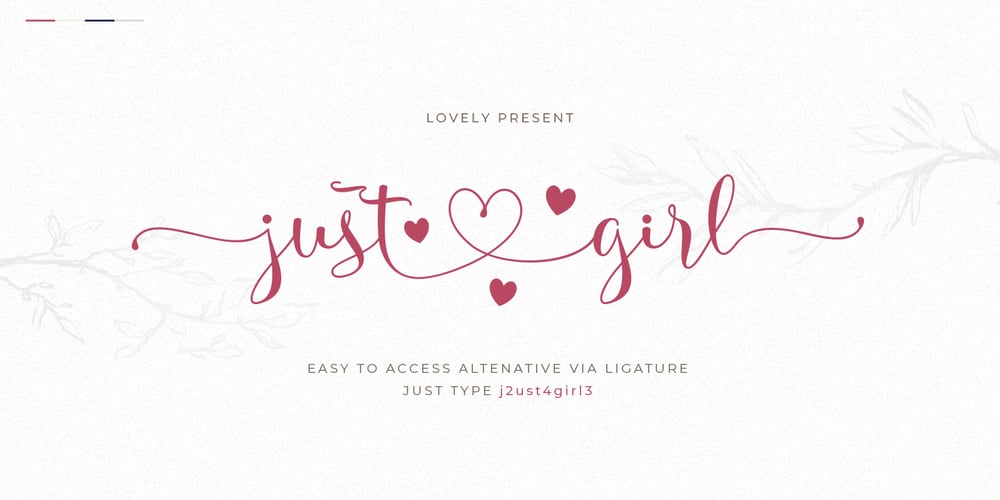
Just Girl Font Family was designed by T. Marjan Bahraini and published by stiplinestudios. Just Girl contains 1 styles and family package options. Lovely Present Just Girl ♥Simple way to access is just type a number (1-10) after the letters (sample in pict no.1)Just Girl ♥ is perfect for wedding stationery, invitations, lovey cards, logos, business cards, branding and other projects that require a touch of love and luxury. This font was created with multilingual support and over 500+ glyph characters, allowing you to create a lovely look to your projects.What you get?? a full packed font which character has build in ligatures encoded. So you don’t have to worry about accesing alternative character to use on any design project.Are you happy with this font? So let me know if you have any question at fittingline99.ac@gmail.comThank you – Stipline Studios